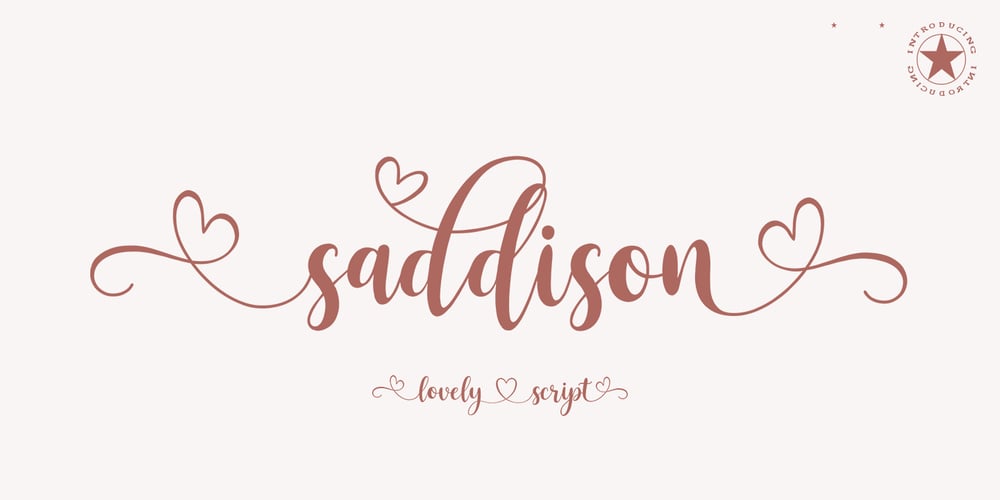
Saddison Font Family was designed by Mu Fazzal and published by Bosstypestudio. Saddison contains 1 styles and family package options. Saddison is a Chic and Lovely Calligraphy font, described by a Love touch with natural handwritten style, perfect for your favorite projects.Fall in love with its incredibly distinct and timeless style and use it to create spectacular designs!What’s Include :Multilingual SupportAlternatisLigaturesThank You,